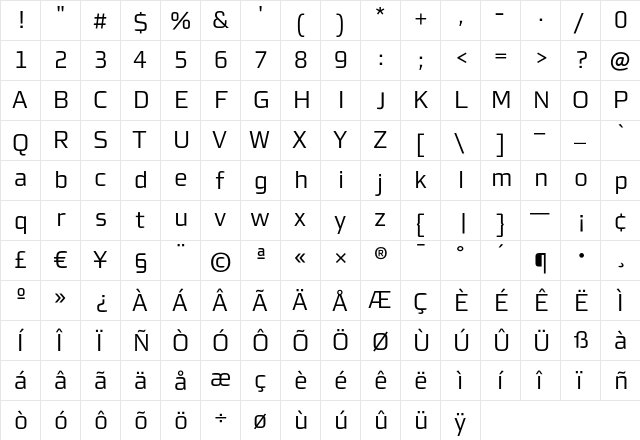
MorganSnLining Regular Font Preview
MorganSnLining Regular
Design Context for MorganSnLining Typeface
MorganSnLining takes a measured approach to typography — its balanced proportions and neutral character make it a reliable workhorse for both digital and print work.